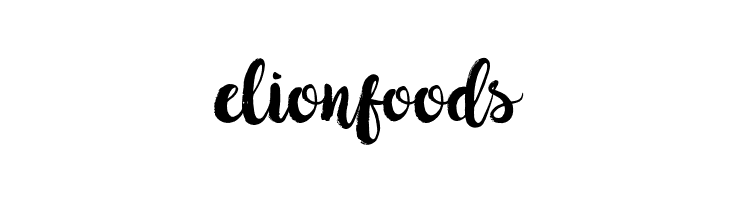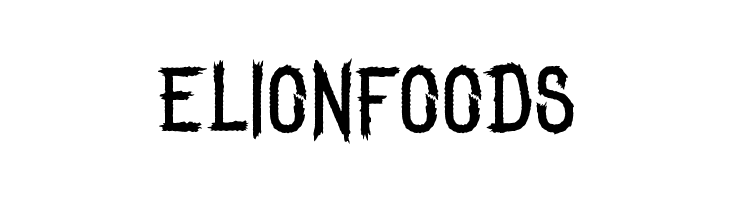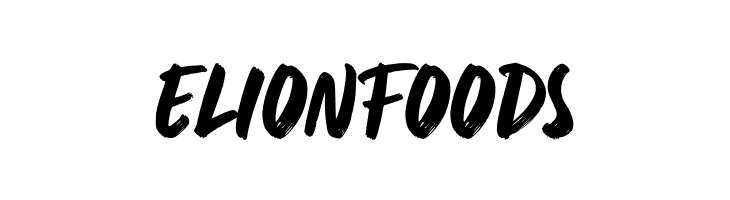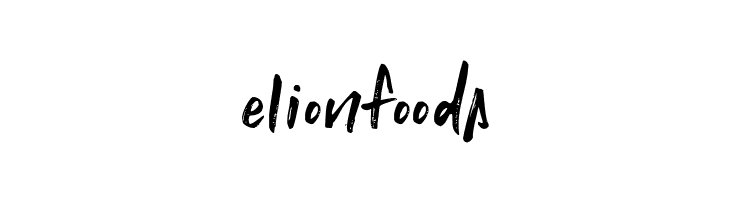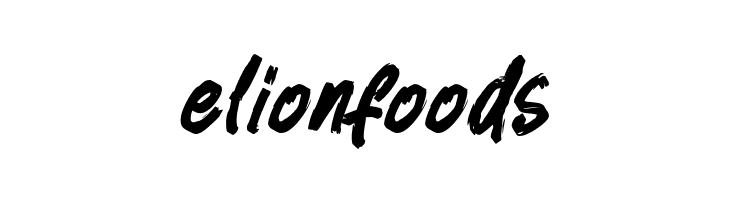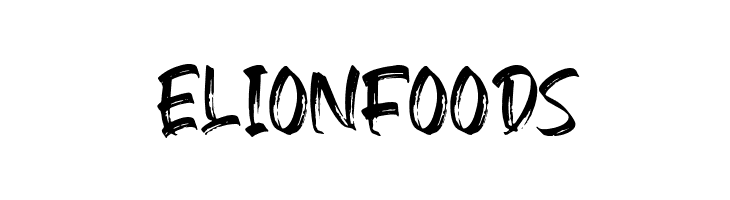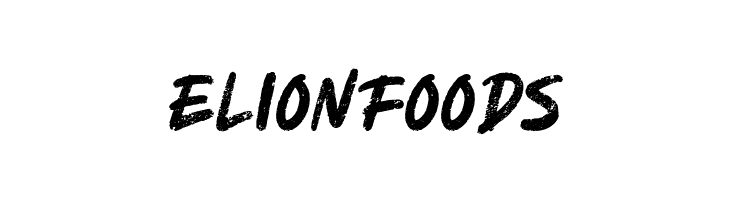
A bold, brush script font with a hand-painted, calligraphic style.
A bold, brush-style font with a hand-painted look, perfect for creative projects.
A bold, brush-style font with rough, textured edges for a hand-painted look.
A bold, brush-style script with dynamic, hand-painted strokes.
A bold, brush-style font with a hand-painted, energetic appearance.
A bold, distressed font with a punk rock, hand-painted style.
A bold, expressive brush-style font with a dynamic, hand-painted appearance.
A bold, brush-style font with dynamic, hand-painted strokes.
A bold, expressive brush-style font with dynamic, hand-painted strokes.
A bold, brush-style font with a textured, hand-painted look.